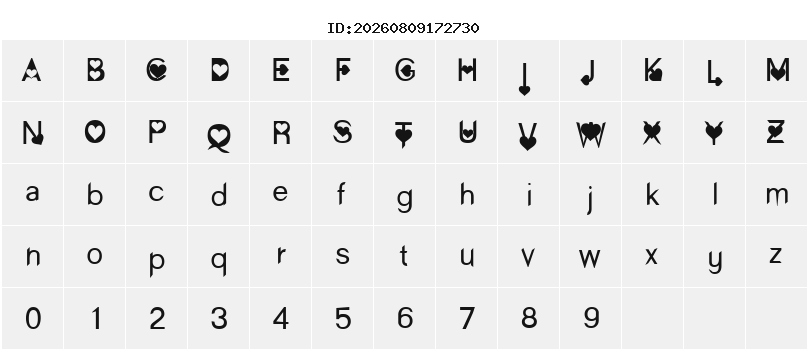
Paris in Love Preview
• Font Name: Paris in Love
• Designer: Tipografia Leone
About Paris in Love.ttf
Paris in Love.ttf is a modern, elegant sans-serif font designed for ultimate readability and visual harmony. Perfect for branding, headlines, web design, and print materials.